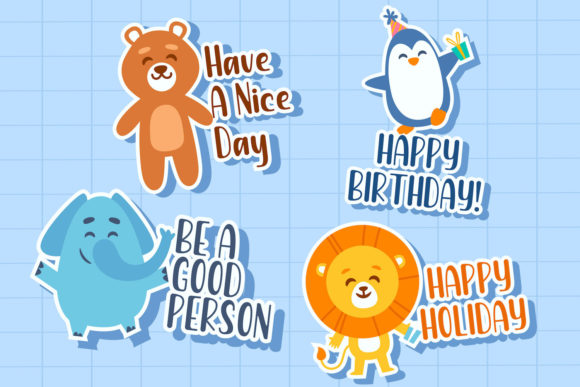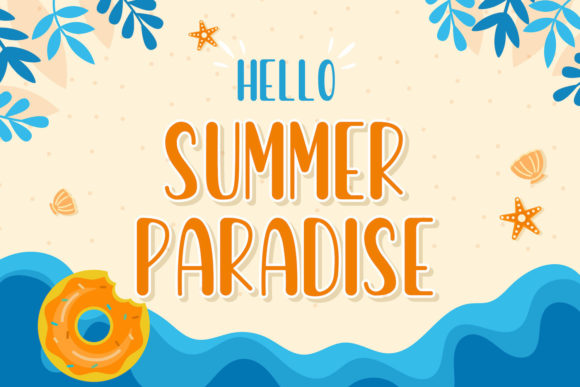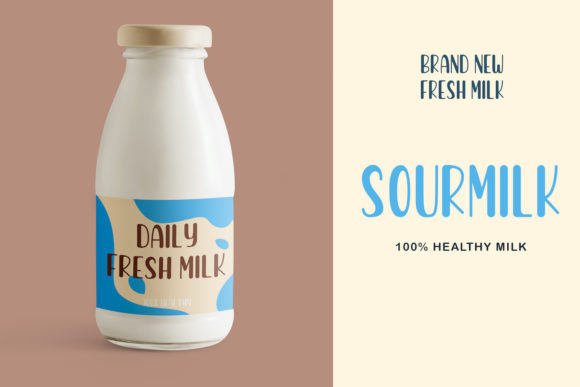
Introduction to Lionel Virgi Font
Lionel Virgi is a fun display font.
Playful and fresh, it will be a hit for each of your children or school projects Add it to any of your creative designs, and marvel at the generated outcome.